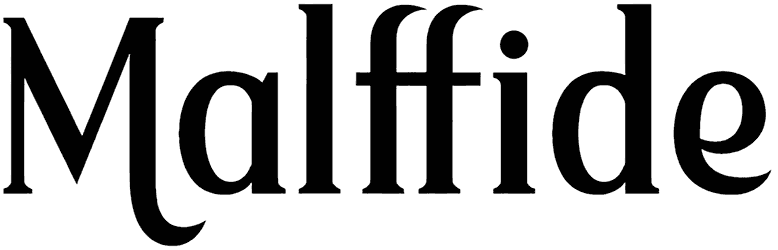
Malffide Font
How can you put down a fantasy book when its title is made with the magical touch of Malffide? You just feel so drawn into its world of wonders that you want to keep reading nonstop. Of course, you can do even more than that with a classic font like Malffide.
Just wait for the next time you have a high-end business to promote, and you’ll see that these fancy fonts play such a vital role in nailing these projects.